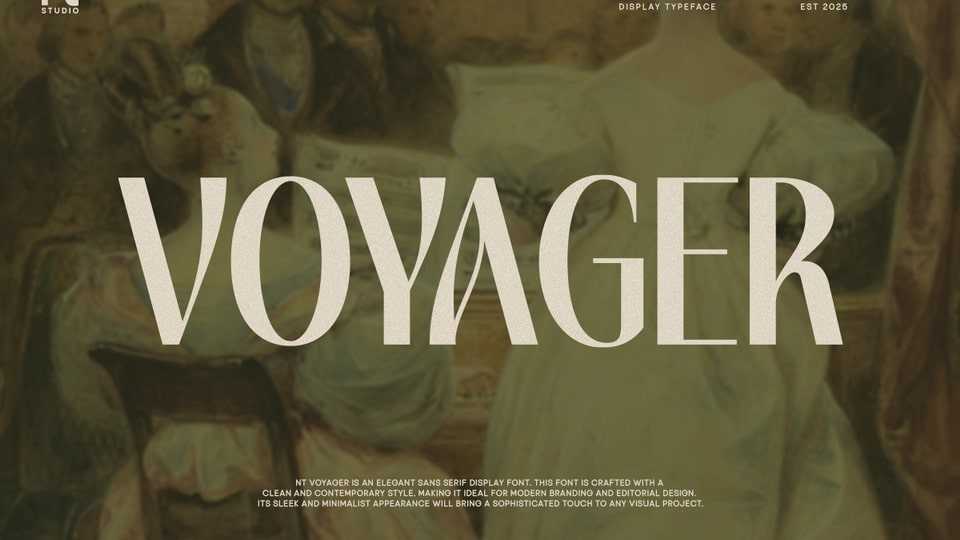
Download NT Voyager, more than just a font — it’s a journey through space and style. Inspired by the spirit of exploration, its sleek, geometric forms echo the design of futuristic worlds and cosmic travel.
Designer: Neotype